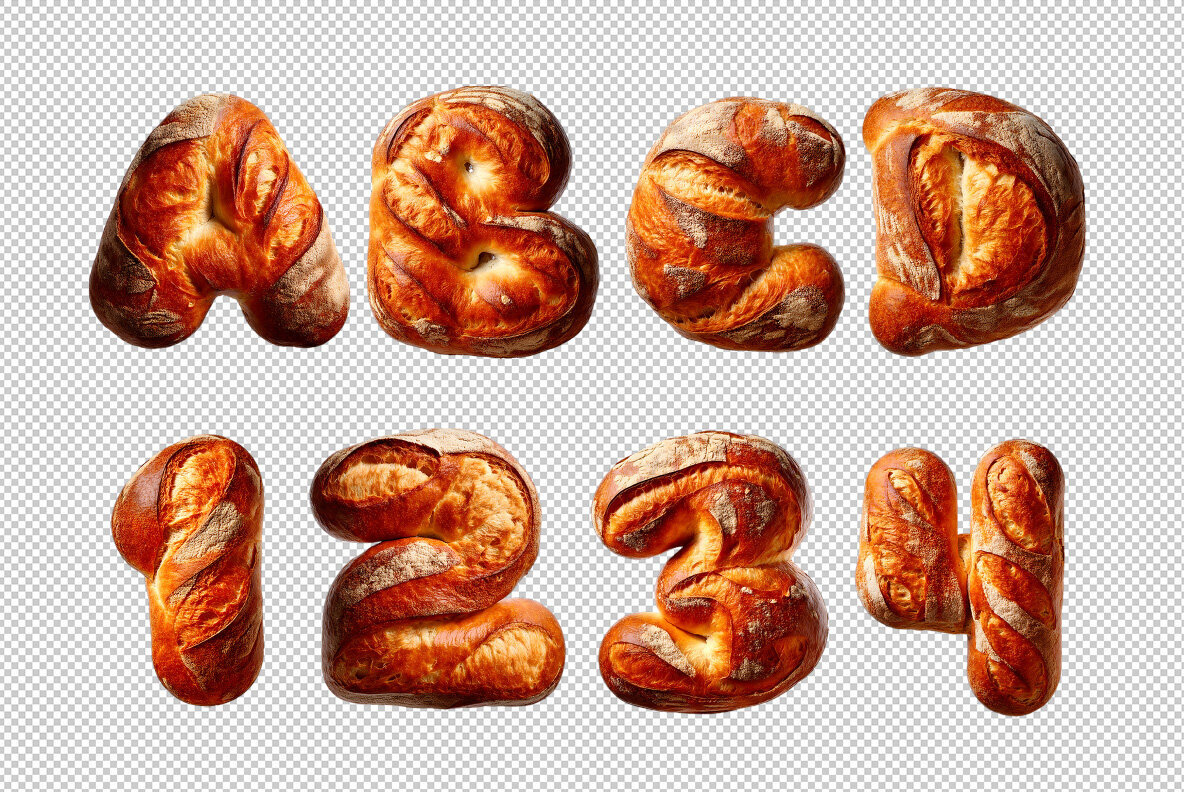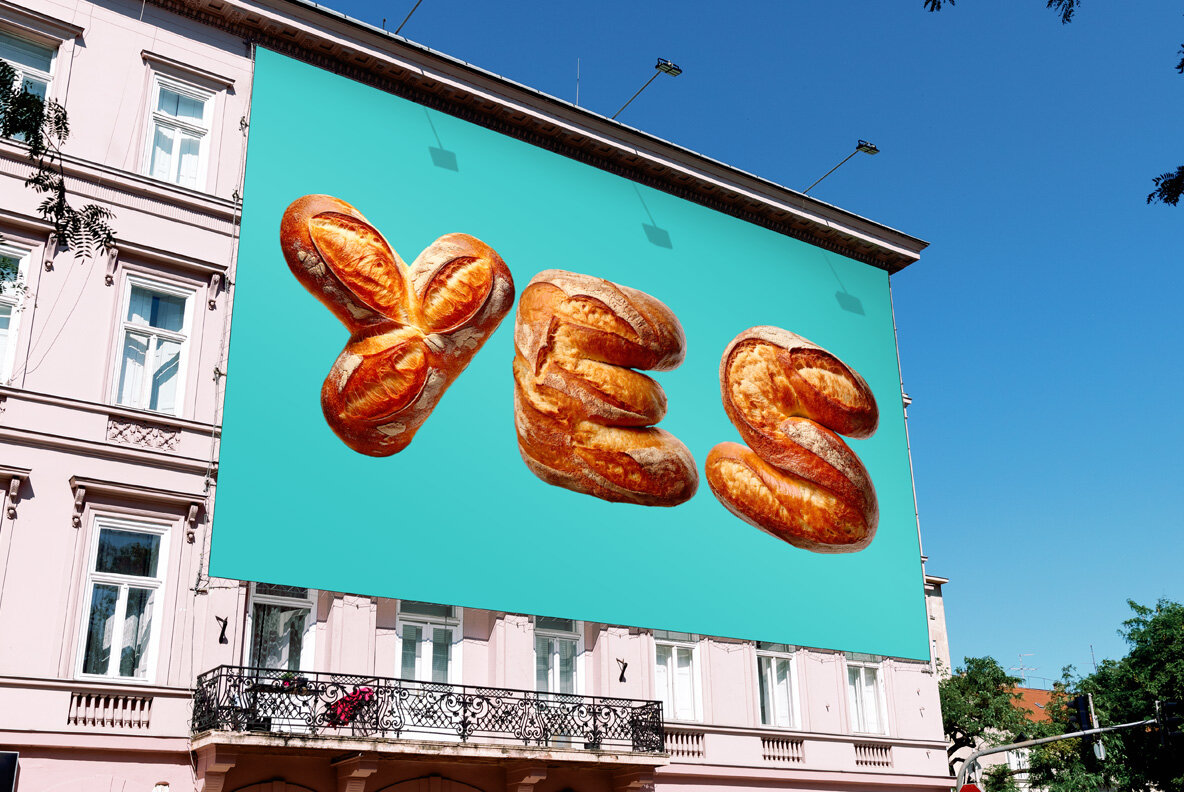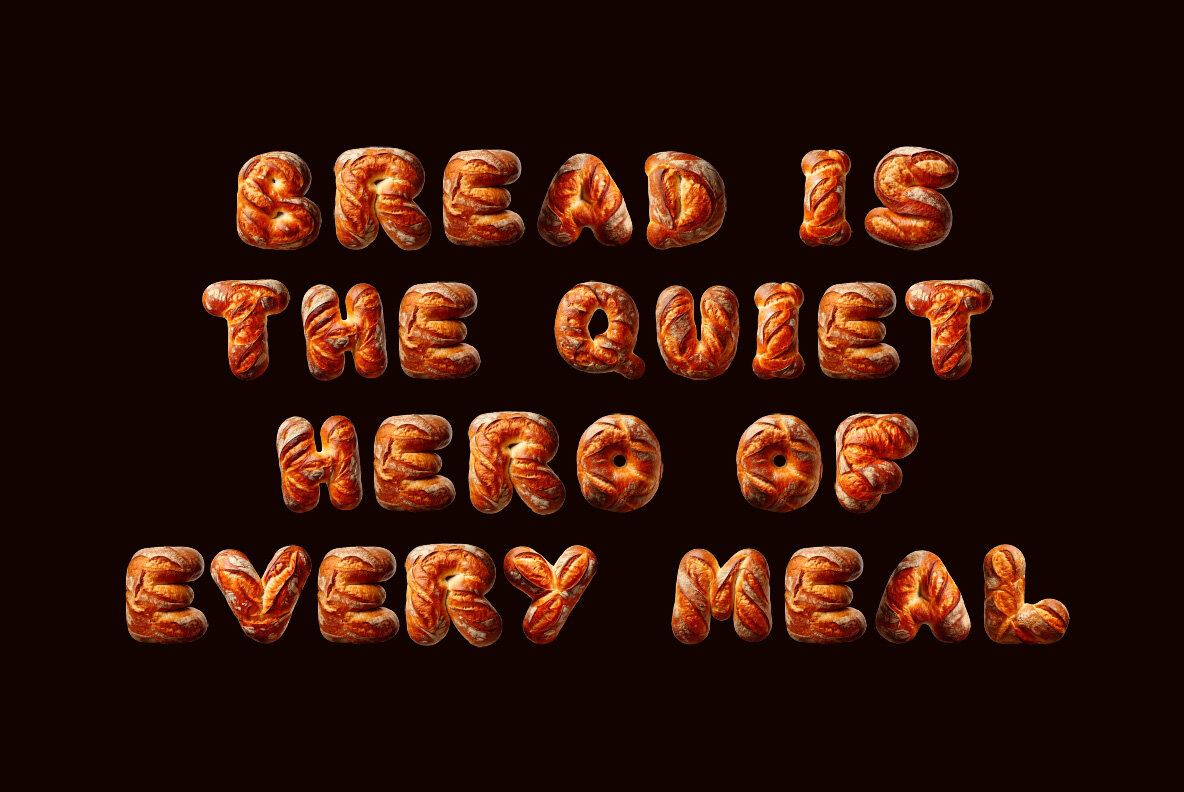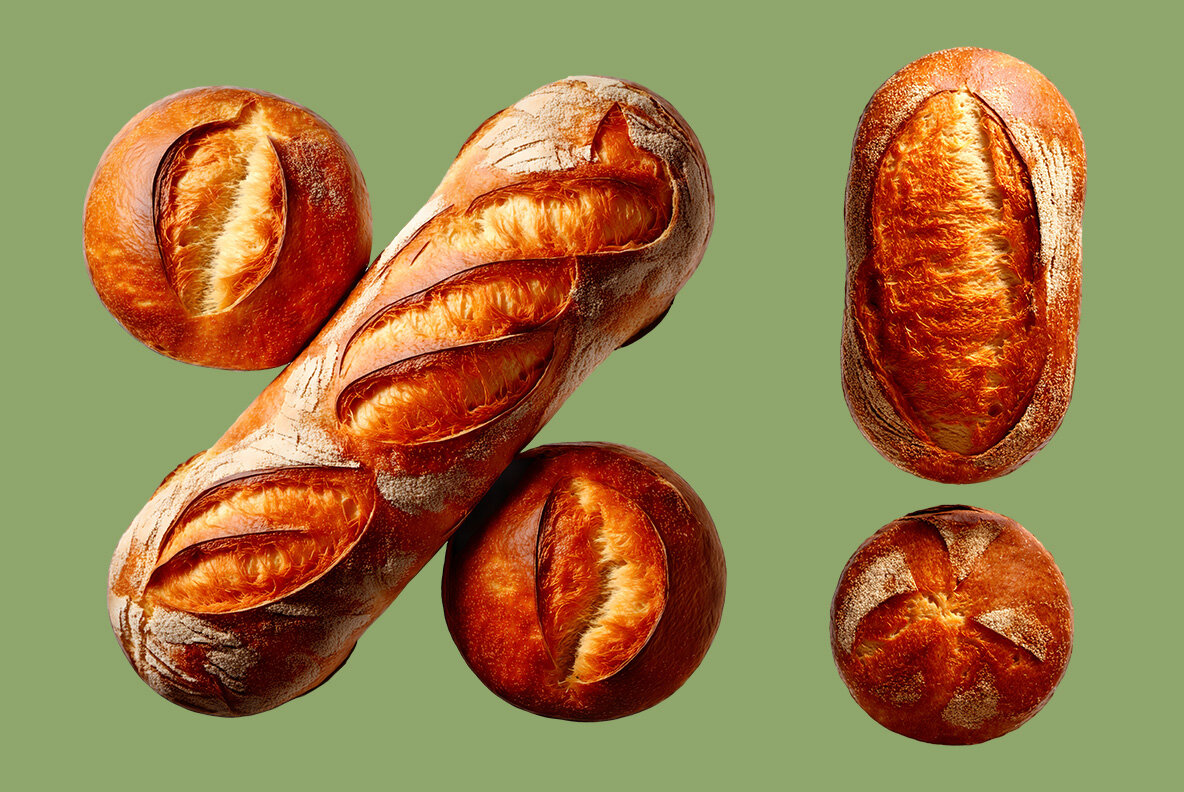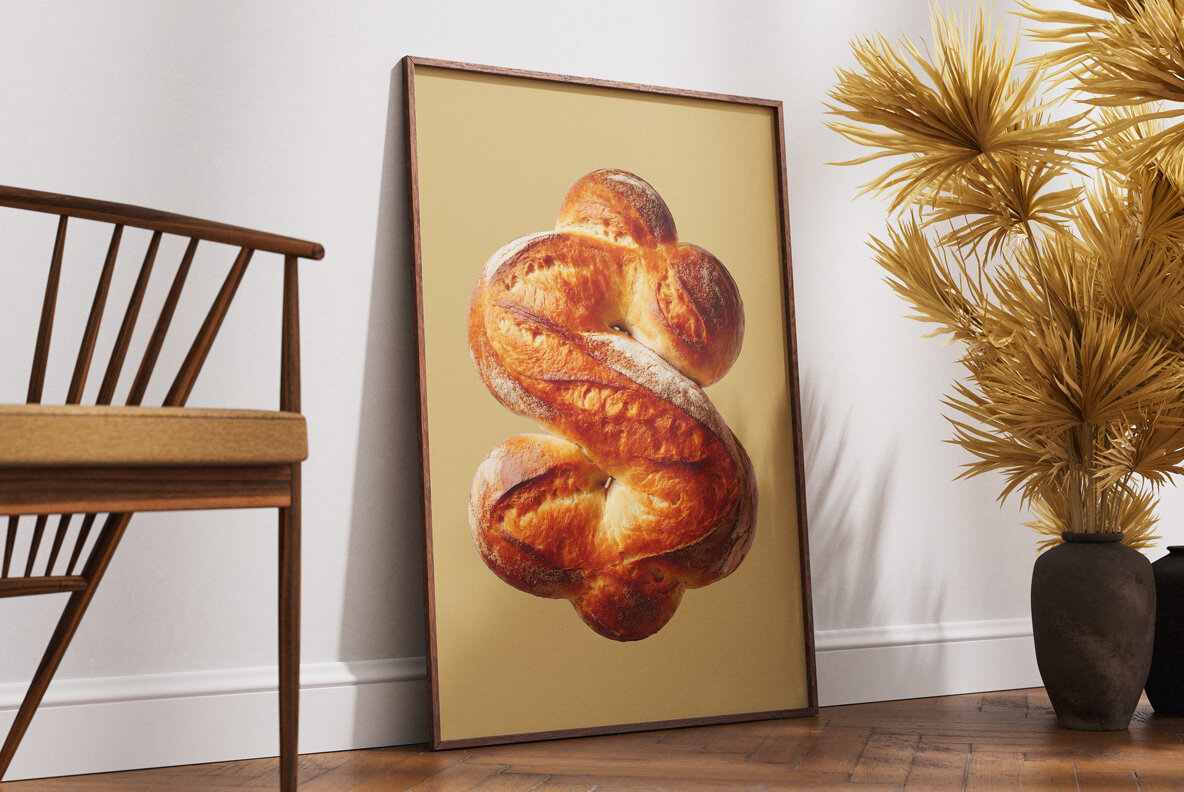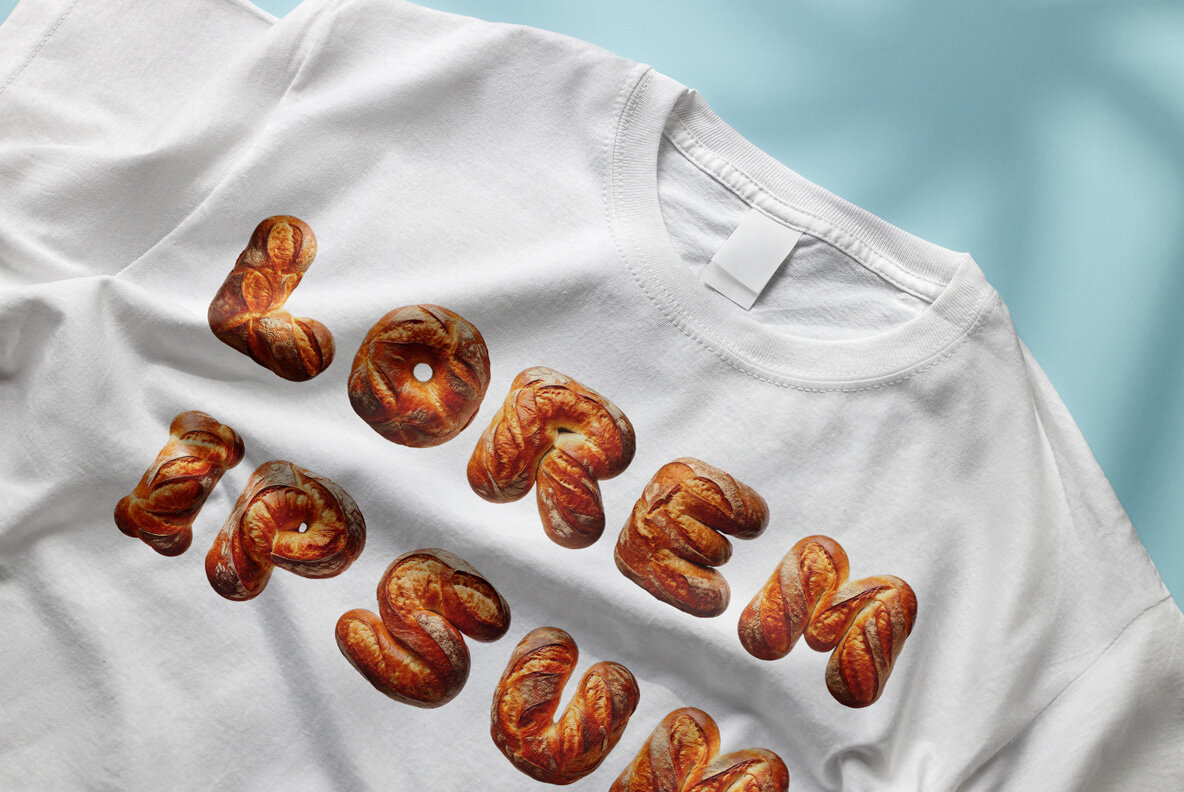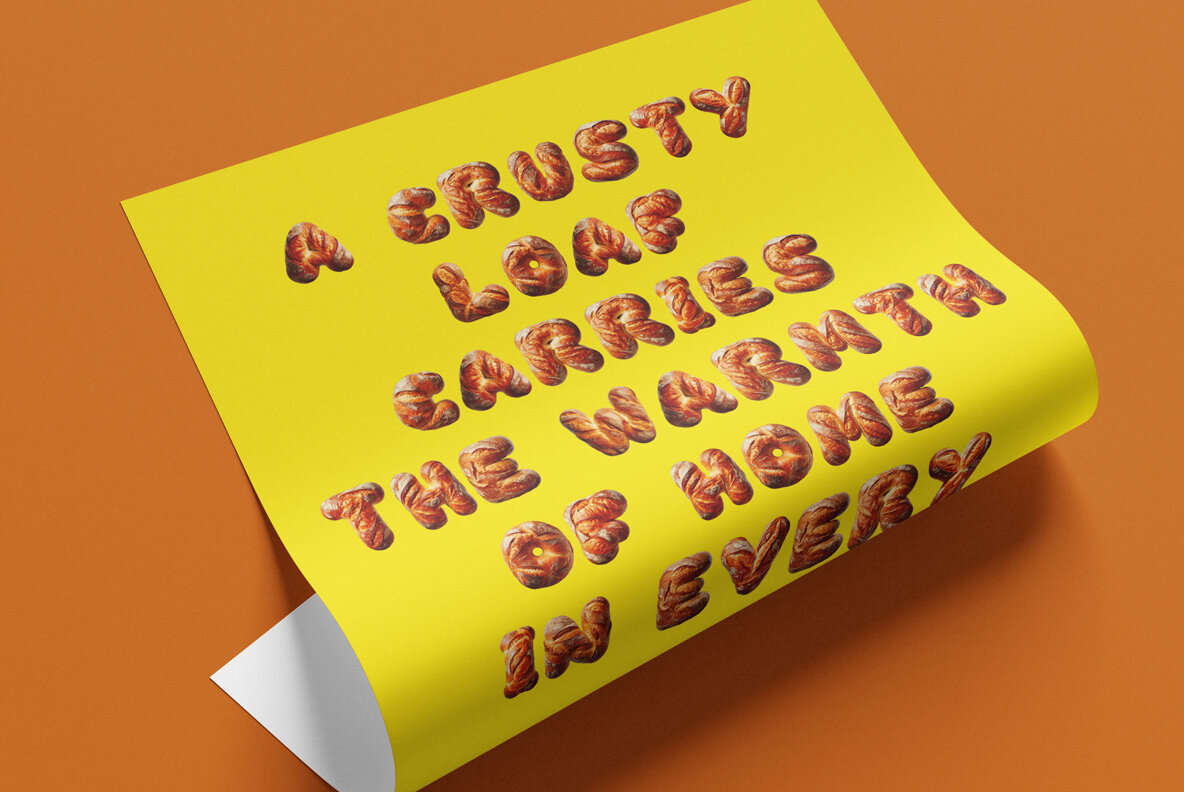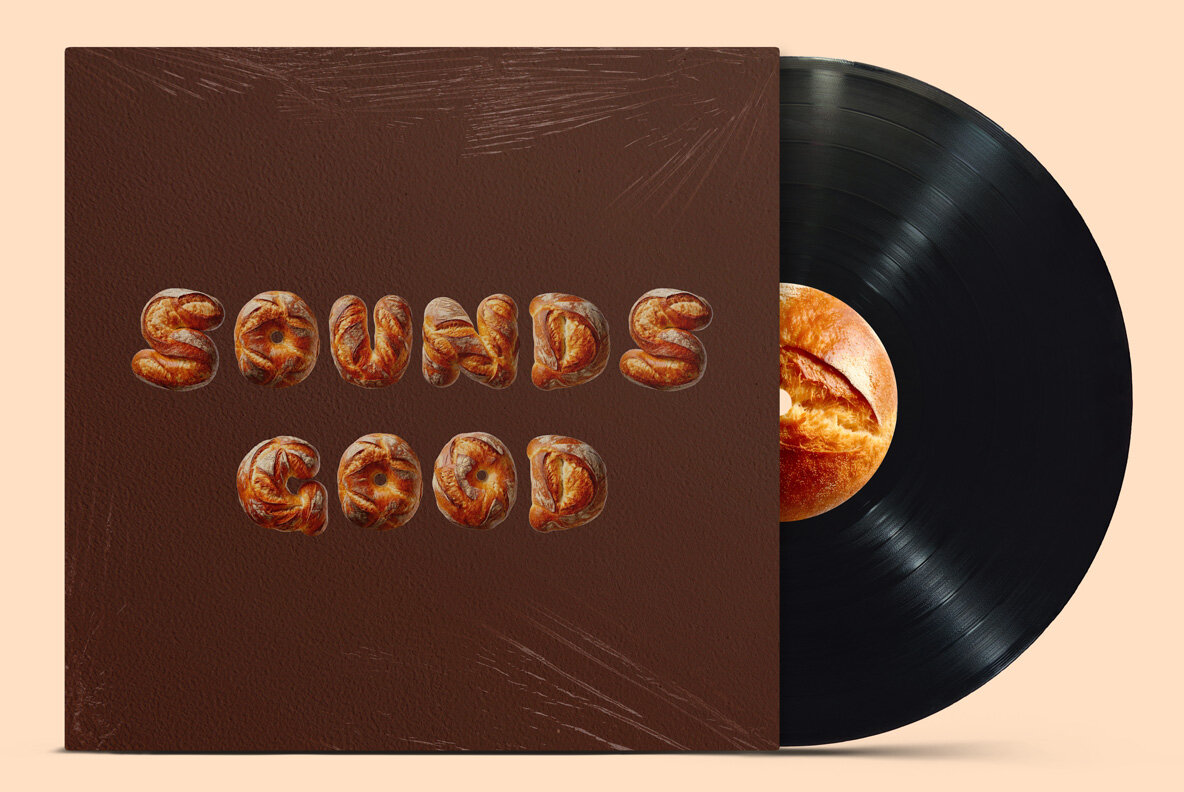
Bakery SVG is a charming typeface, where each character is designed to resemble a fluffy bread loaf, infusing your projects with a warm, artisanal feel. Ideal for food-themed designs, bakery branding, or any cozy visual aesthetic, Bakery adds a playful and appetizing touch to your creative work. The typeface is meticulously detailed, capturing the soft curves and golden crusts of freshly baked bread, making it perfect for menus, posters, and social media.
This typeface is a high-definition OpenType Font featuring uppercase letters, numerals, and basic punctuation, with a draw height of approximately 800 pixels. Notably, it is a color OpenType file, compatible with applications that support color bitmap fonts, including popular software like Photoshop, Illustrator, and InDesign. Additionally, each character is also available as an individual PNG file with a high resolution of 4000x4000 pixels, allowing use in any graphics software on a transparent background. The package includes 52 files, covering a full alphabet, numbers 0-9, and essential punctuation marks such as !, ?, -, ., €, %, and &. Each punctuation and additional accent is accessible manually through the PNG letter set, providing flexibility for custom text arrangement.